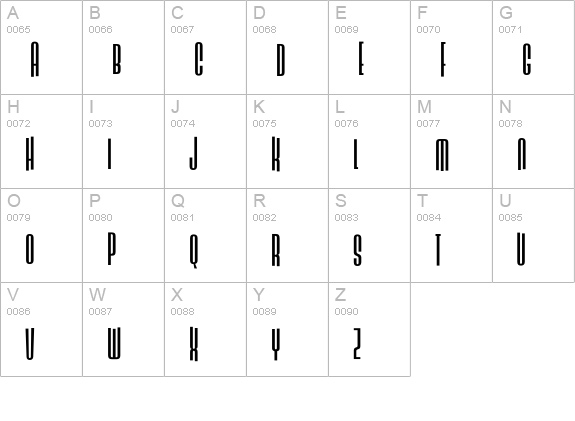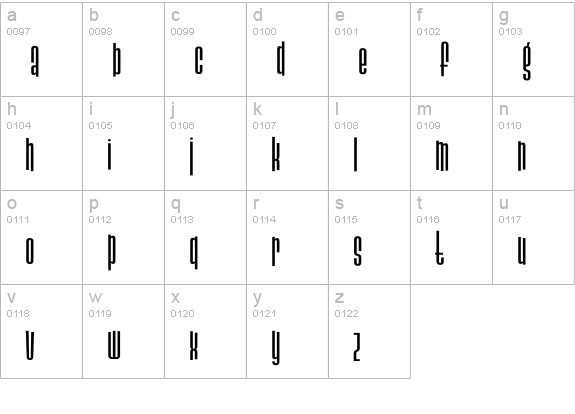
SlackCasual-Medium Font Details
SlackCasual-Medium is a balanced, medium-weight variant in the SlackCasual typeface family \xE2\x80\x94 well suited to sub-headlines, navigation, and balanced editorial work.
SlackCasual-Medium is a stylish and versatile font that effortlessly combines a casual and medium weight design. With its clean lines and relaxed yet confident appearance, this font is perfect for adding a touch of modernity to your projects. Whether you're designing a logo, creating a poster, or crafting social media graphics, SlackCasual-Medium will bring a contemporary and trendy vibe to your work. Its balanced proportions and smooth curves make it easy to read and visually appealing, ensuring that your message stands out. What's even better is that SlackCasual-Medium is available for free! You can easily download this font at FontsMarket.com, a trusted source for high-quality fonts. Enjoy the freedom to enhance your designs without breaking the bank. So why wait? Elevate your creativity and make a statement with SlackCasual-Medium. Download it now for free at FontsMarket.com and let your designs shine with style and sophistication.